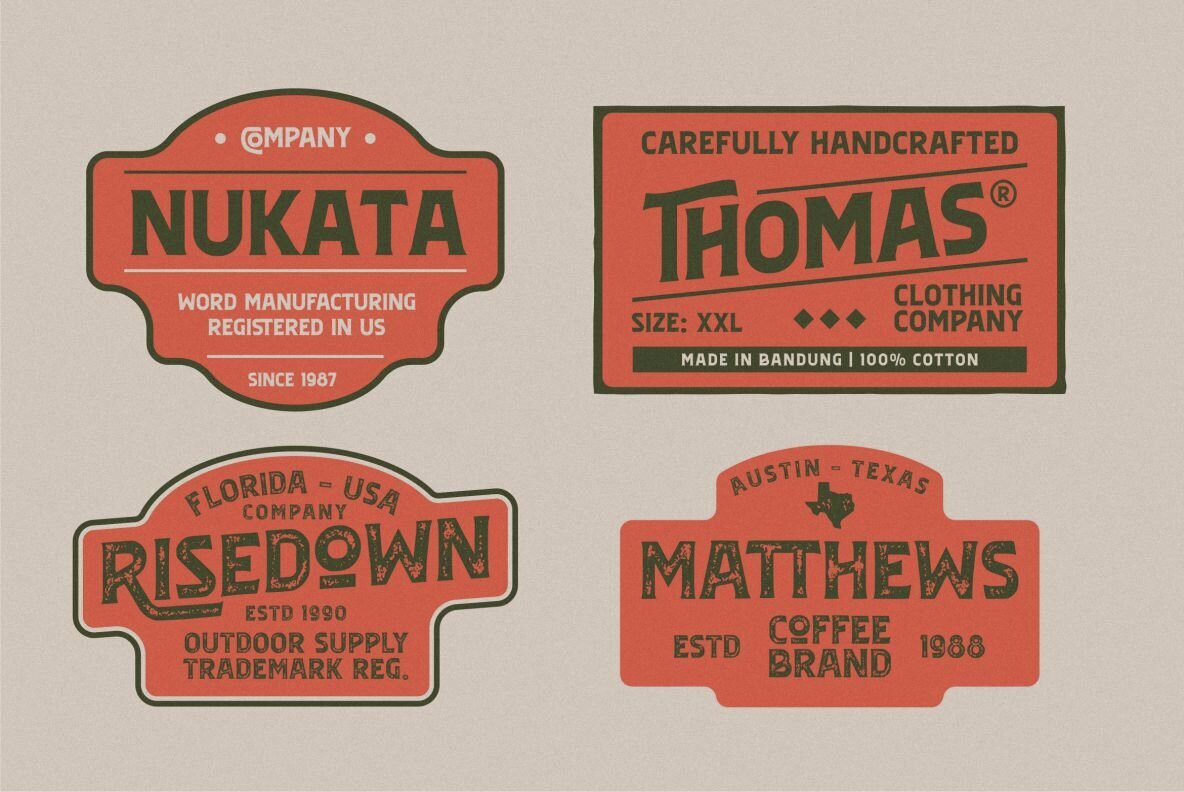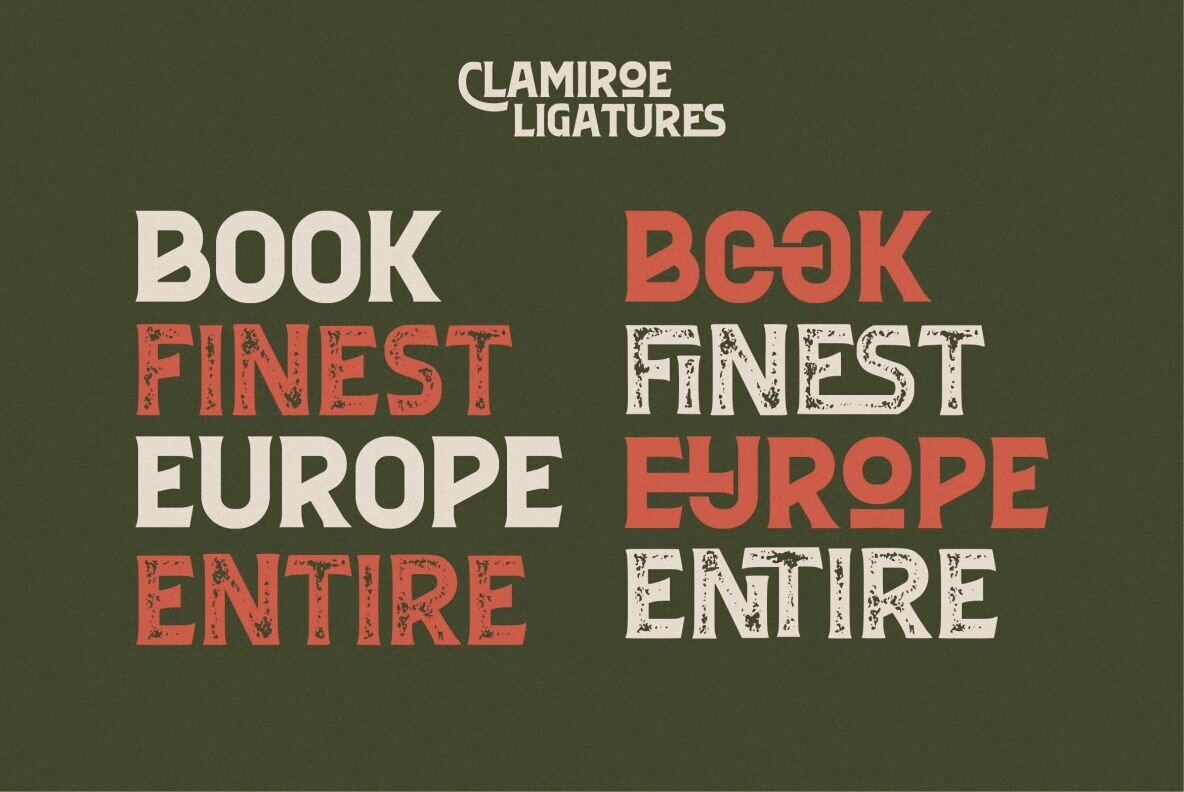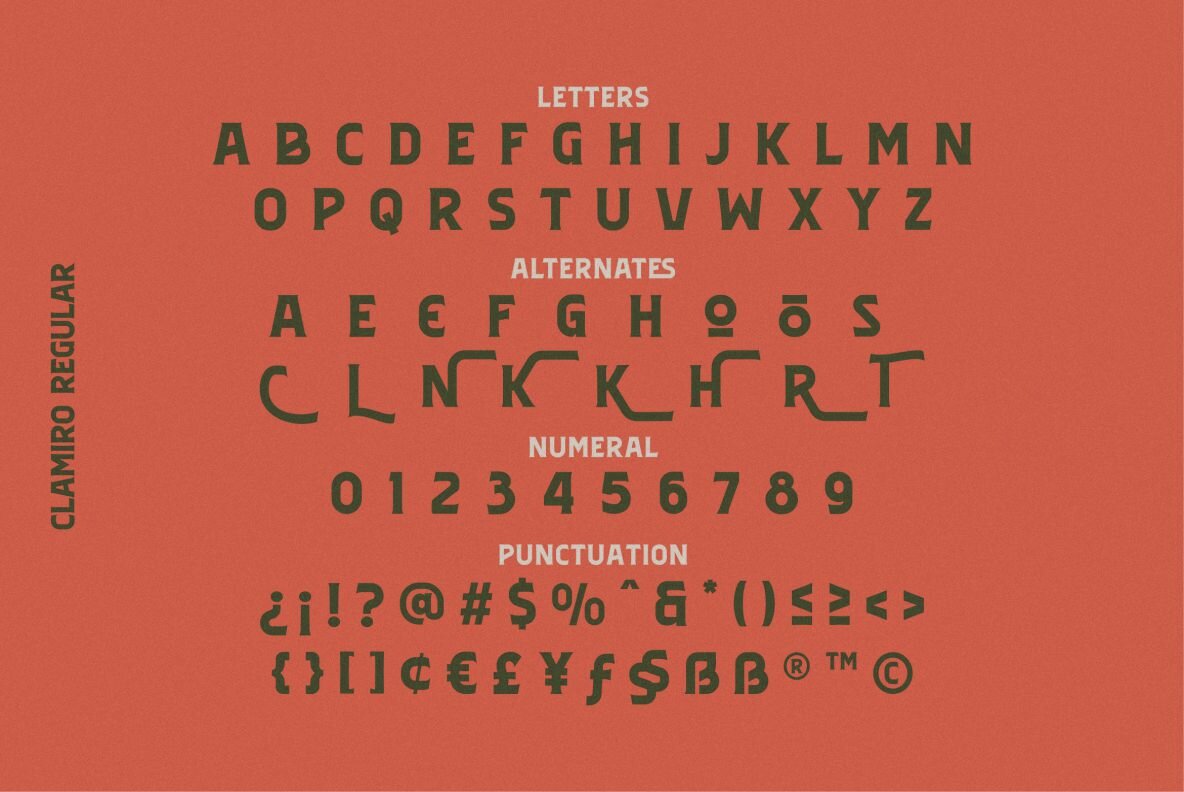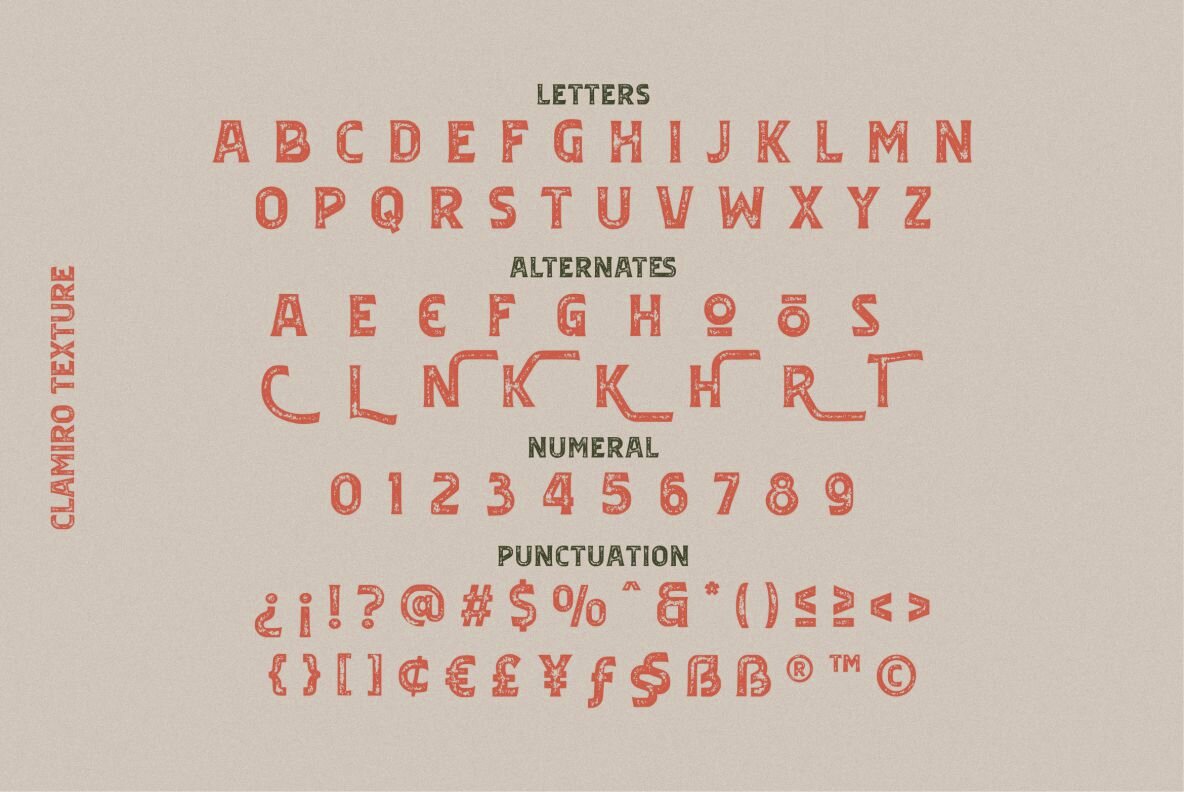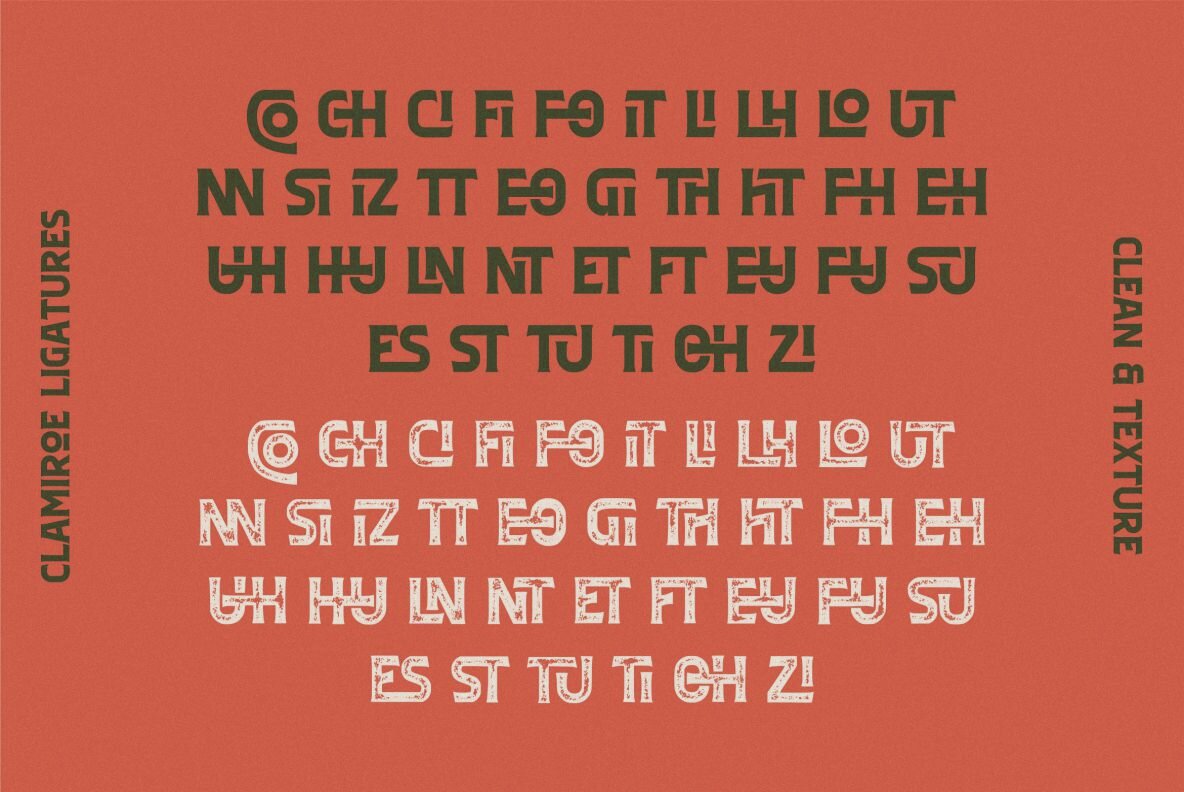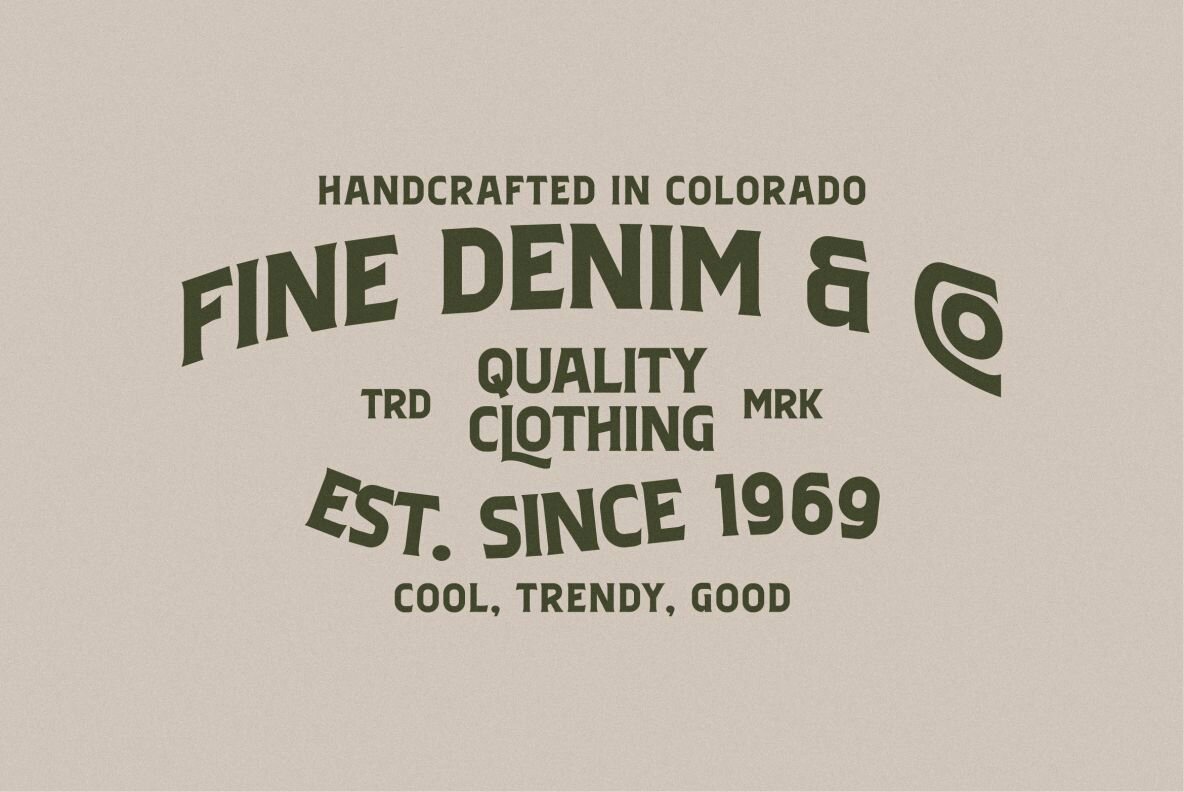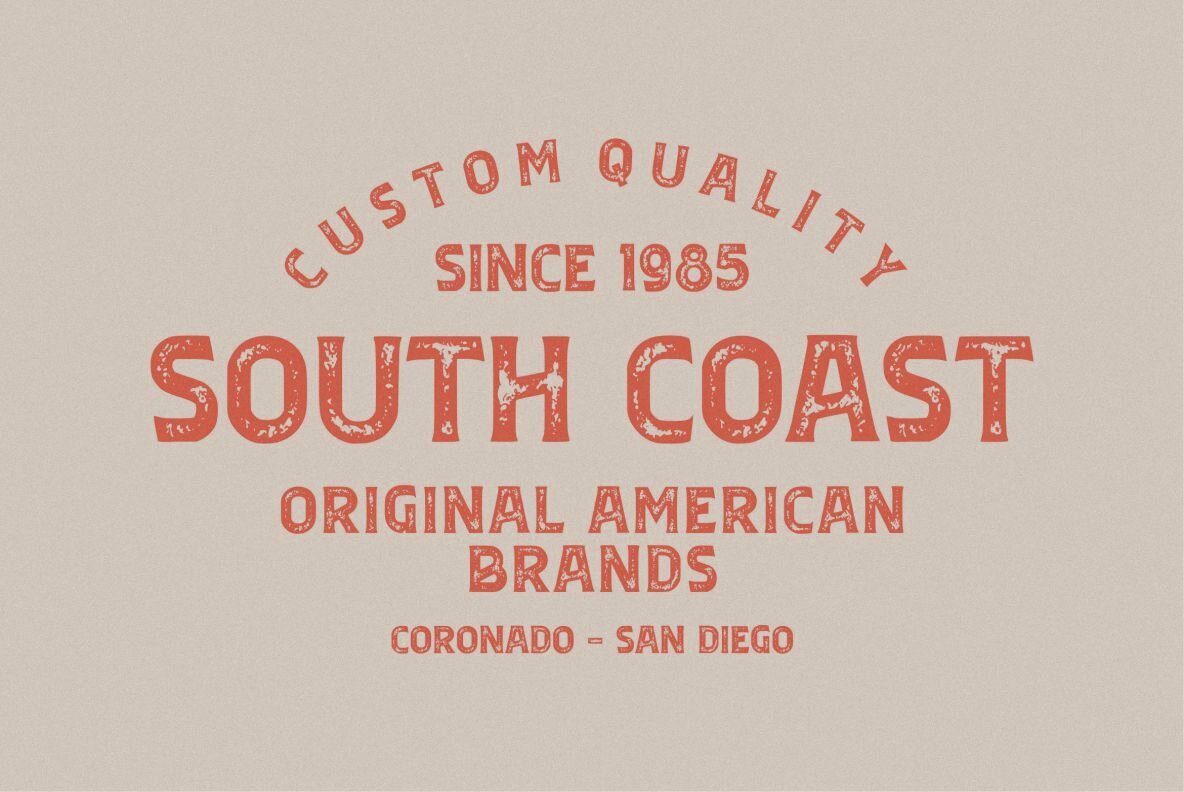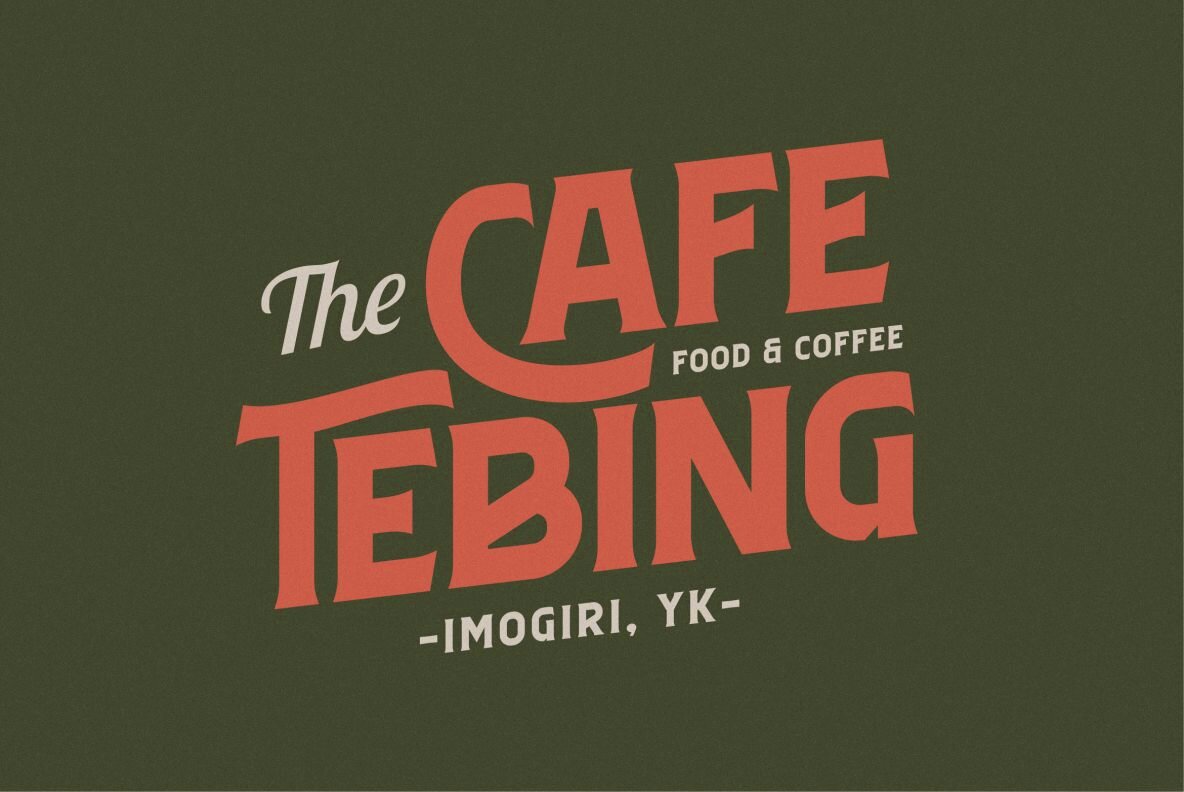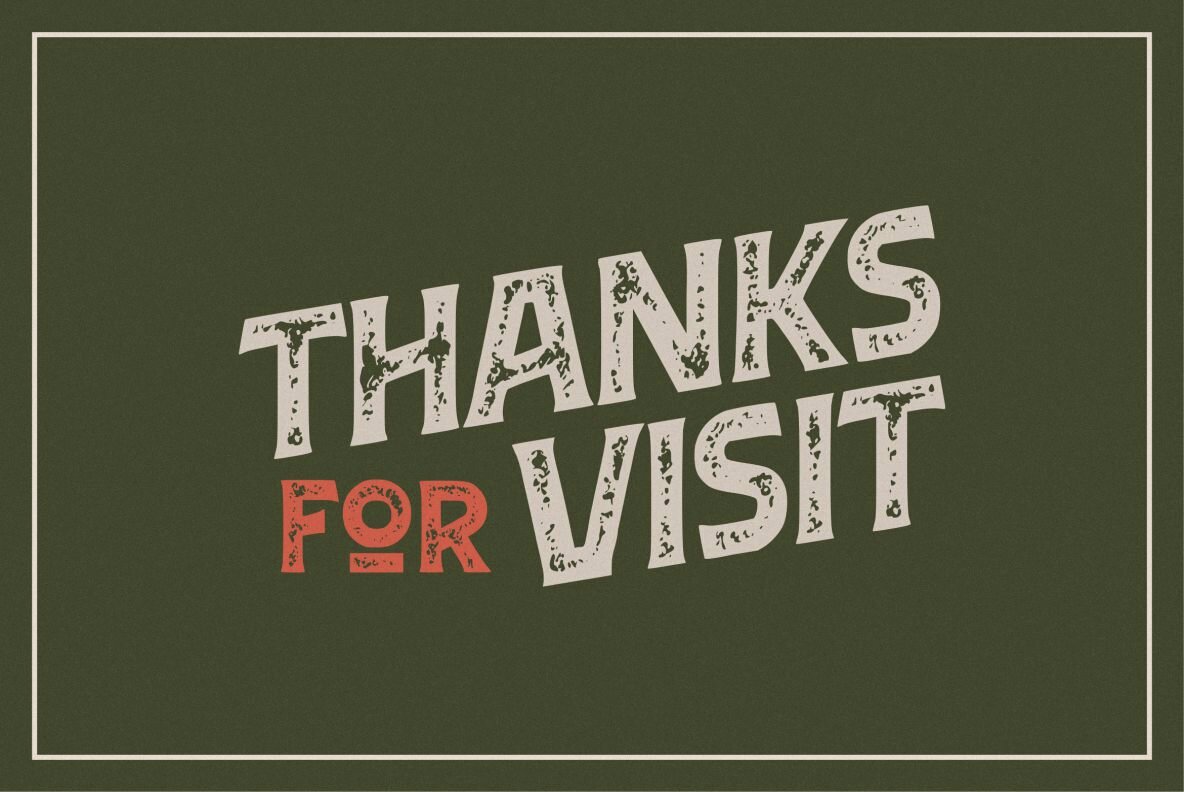
Clamiroe Font
Clamiroe is a vintage display typeface that features both clean and textured styles. Inspired by classic packaging designs, vintage flyer headlines, and timeless signage, it evokes a nostalgic aesthetic perfect for various creative projects. As an all-caps font, Clamiroe is ideal for branding, poster design, packaging, book covers, flyers, and t-shirt designs.Clamiroe: Vintage Display Typeface with Dual Styles
Unique Features